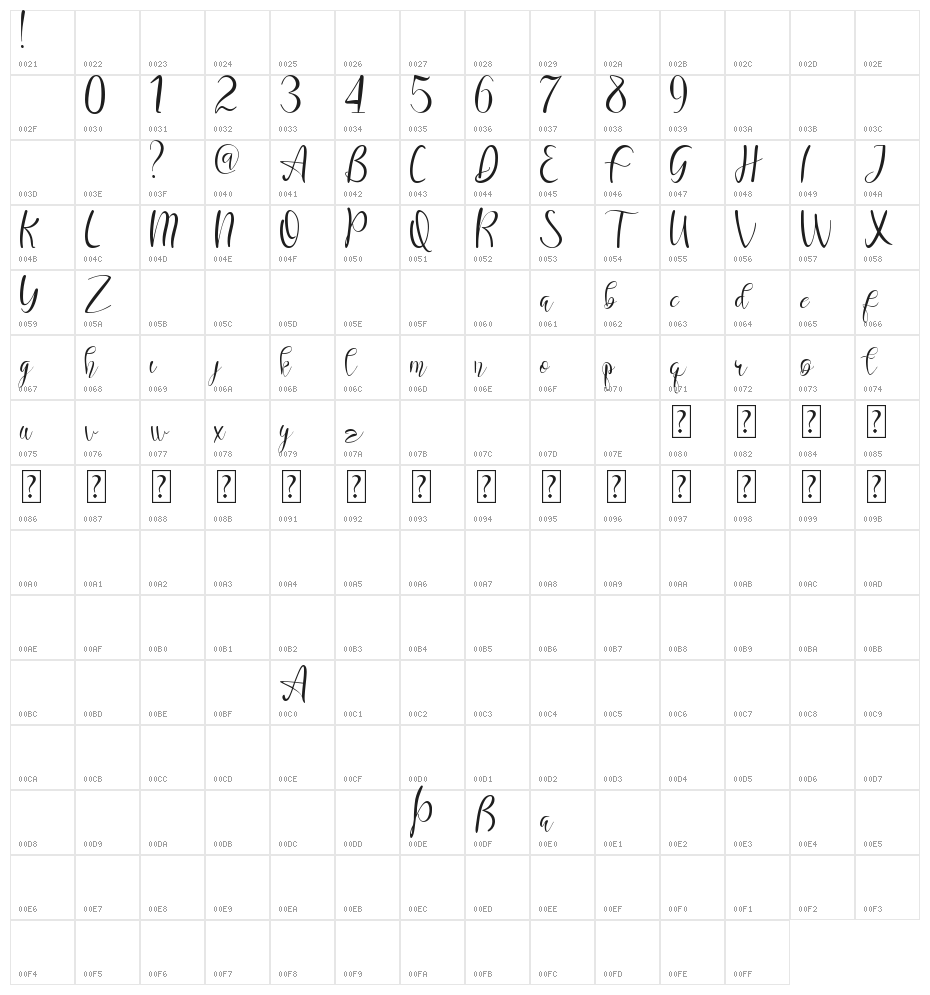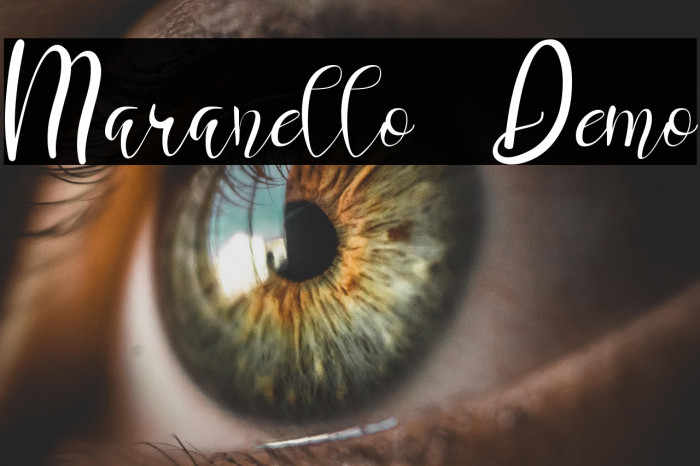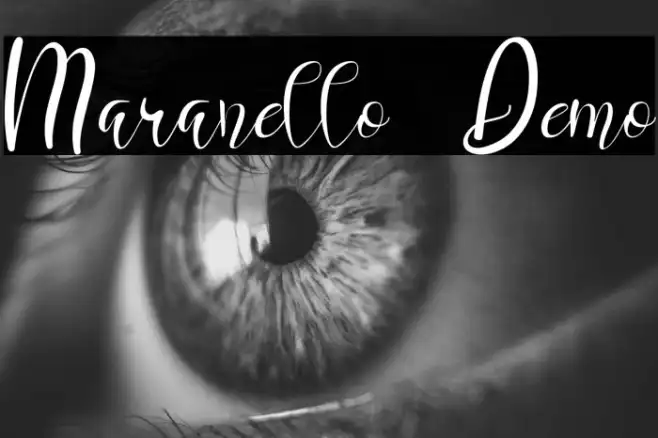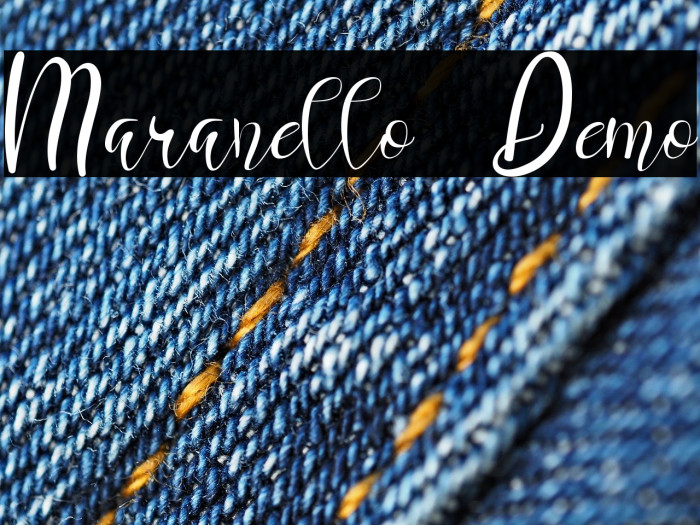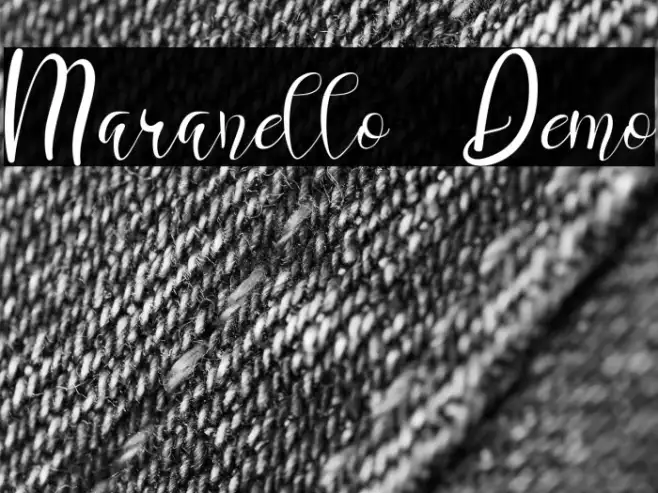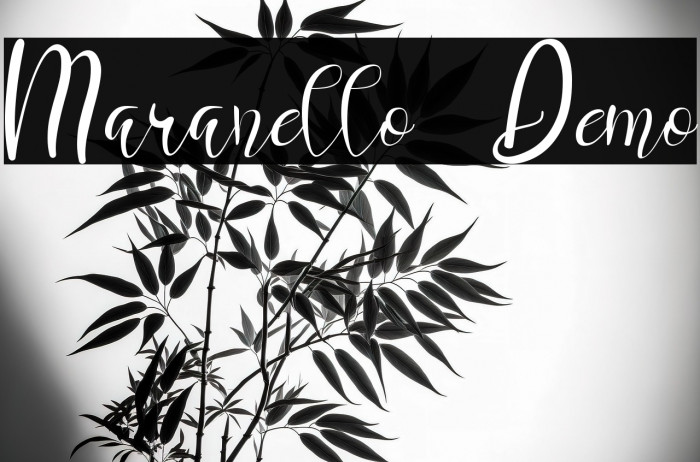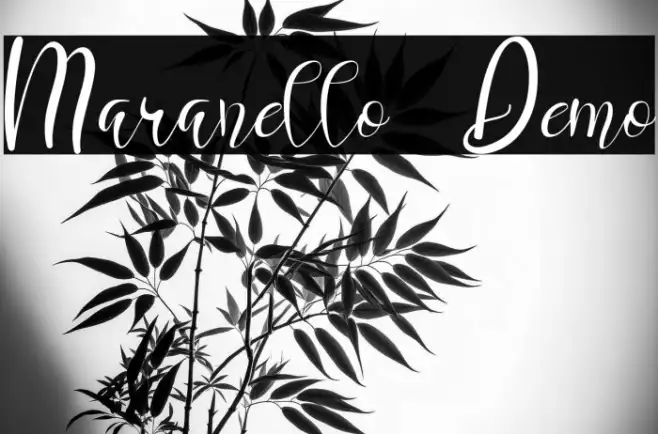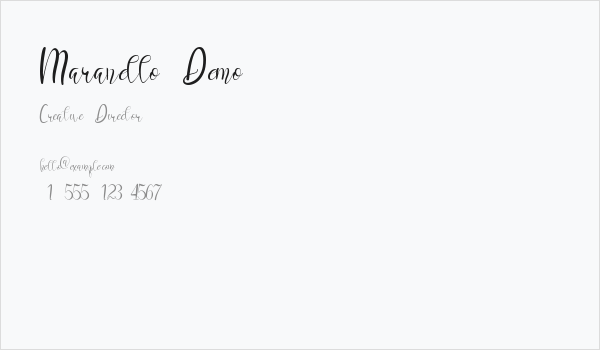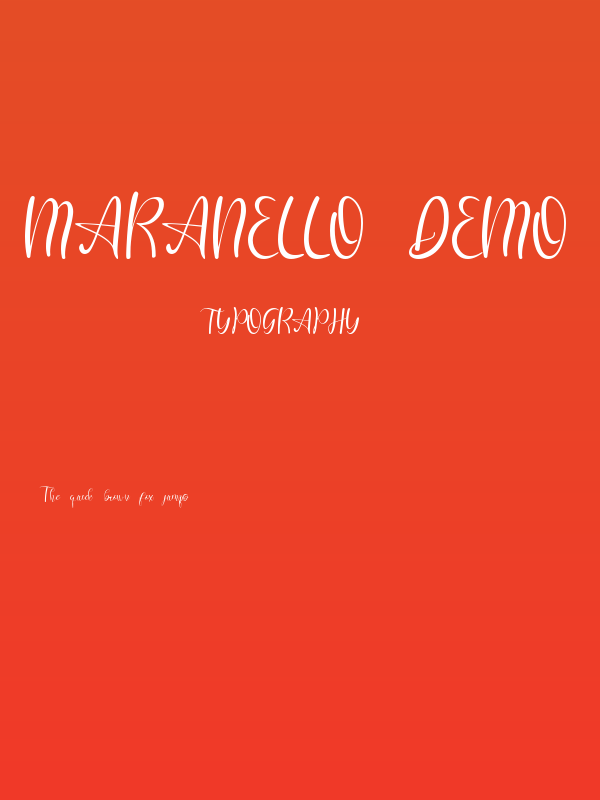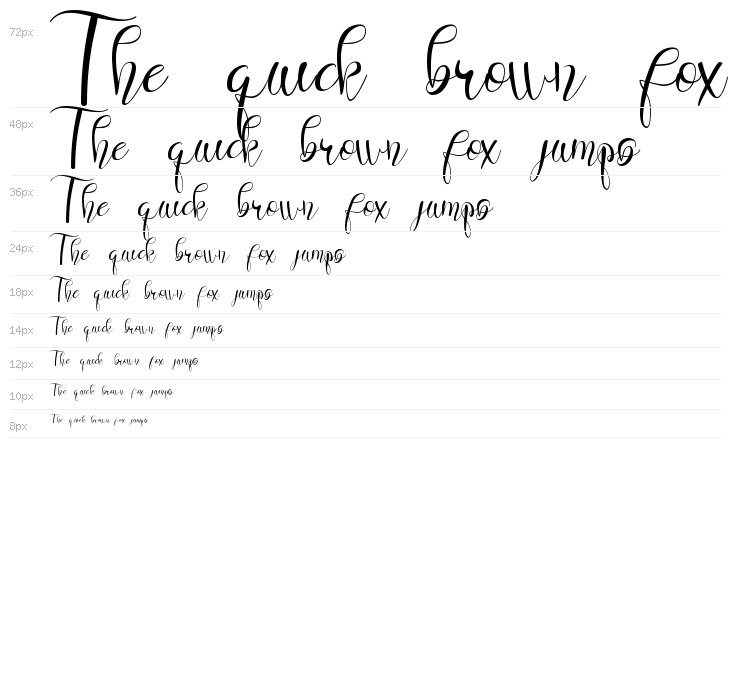
Maranello Demo Font
Maranello Demo Description
This elegant script font features a flowing, cursive style with smooth, sweeping curves and a sophisticated appearance. The uppercase letters are tall and graceful, with distinctive loops and flourishes that add a touch of elegance. The lowercase letters maintain a consistent flow, creating a harmonious and connected look. The numerals are bold and slightly italicized, complementing the overall style. This font is perfect for projects that require a touch of class and sophistication, such as wedding invitations, luxury branding, and high-end packaging. Its artistic flair and fluidity make it stand out, while its readability ensures it remains practical for various uses.
| Proposed Projects | Ideal for wedding invitations, luxury branding, and high-end packaging. |